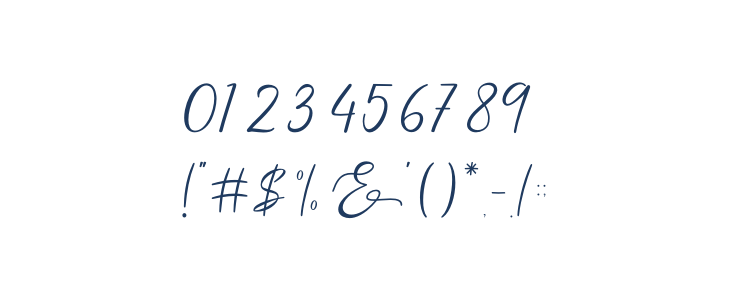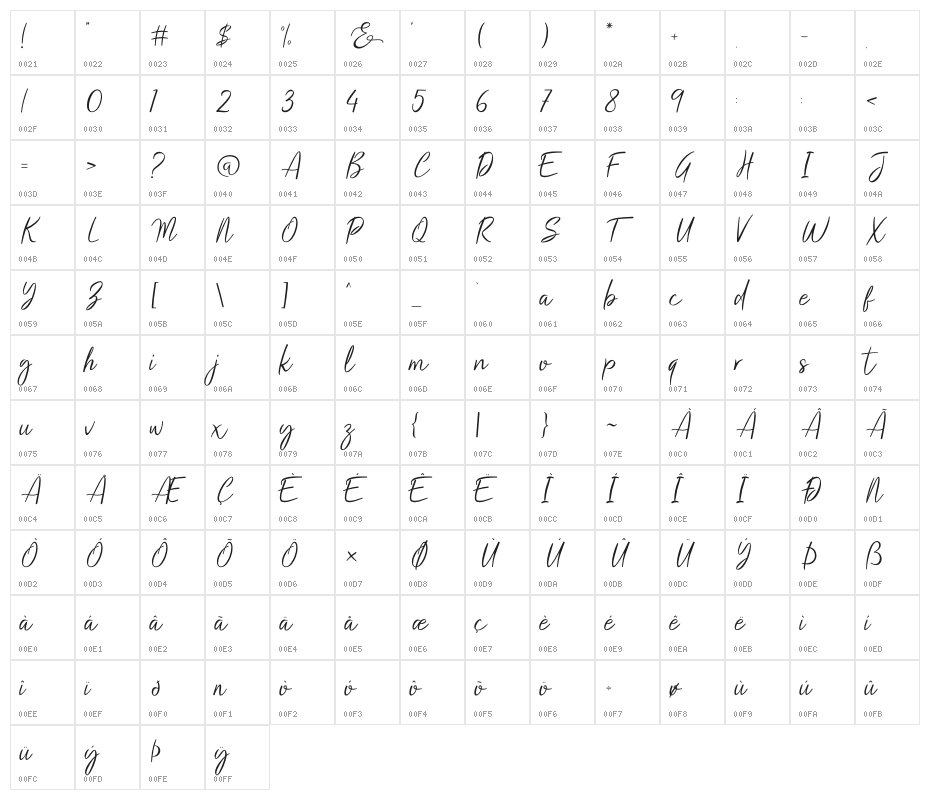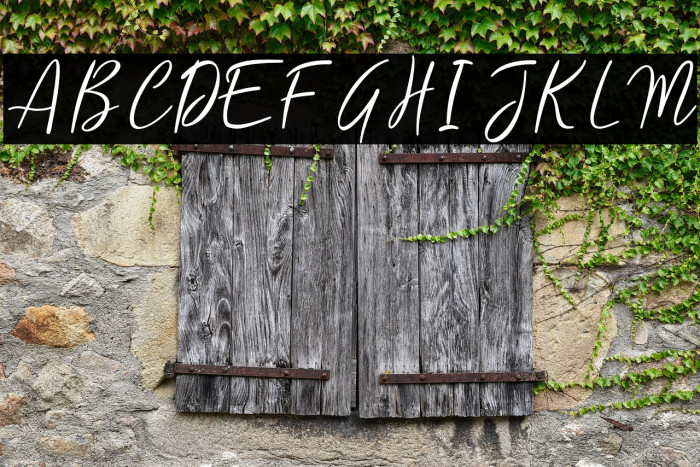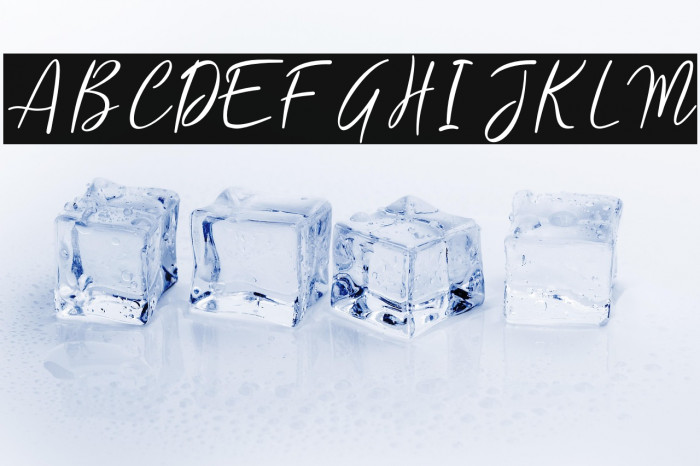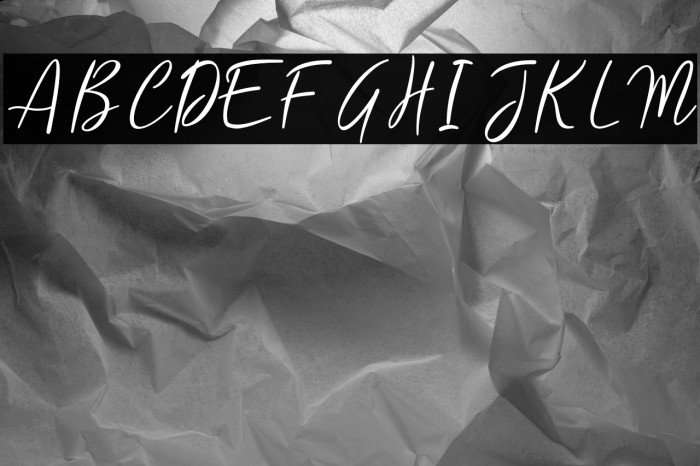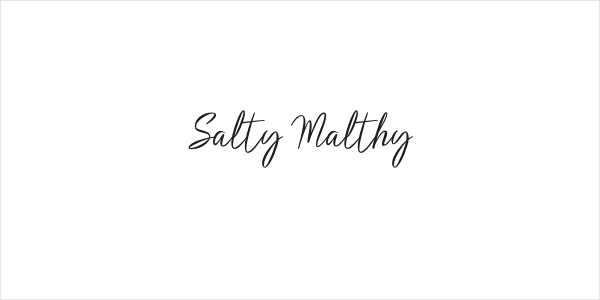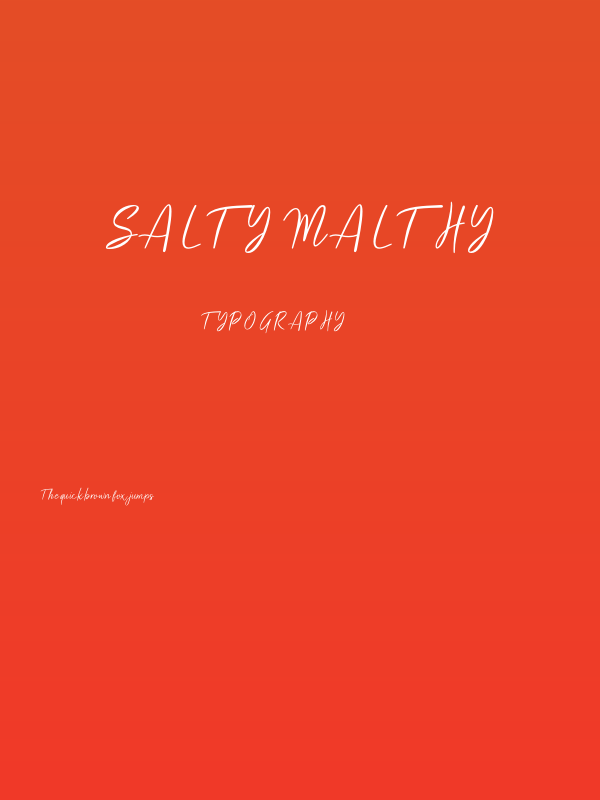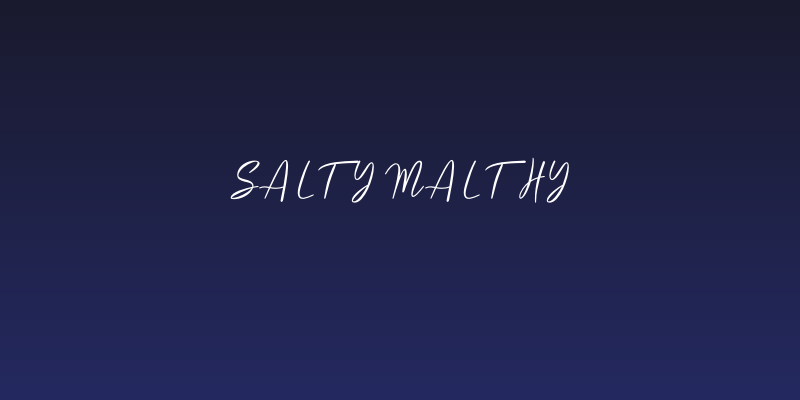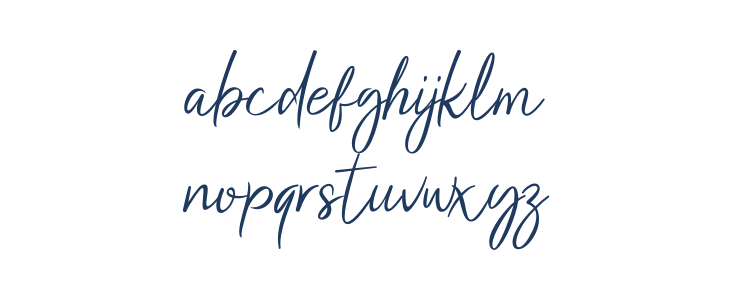
Salty Malthy Font
Salty Malthy Description
This font exhibits a lively and fluid script style, characterized by its elegant and flowing strokes. The uppercase letters are tall and slender, with a slight slant that adds a sense of motion and grace. The lowercase letters continue this fluidity, with smooth connections between characters that enhance its cursive nature. The numerals are consistent with the overall style, maintaining the same slanted and handwritten appearance. Special characters are thoughtfully integrated, ensuring they match the aesthetic of the alphabet. This font's design is both sophisticated and approachable, making it suitable for a variety of creative applications.